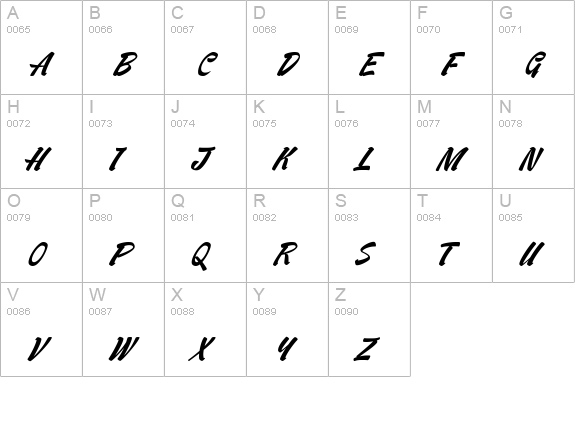
Ventography Personal Use Only font is a versatile and unique typeface that is perfect for adding a touch of elegance to any design project. Its striking and stylish letterforms make it suitable for a wide range of applications, from logos and branding to headings and signage. This font features a delicate balance between classic and modern design elements, creating a harmonious and visually appealing aesthetic. With its clean lines and intricate details, Ventography Personal Use Only font exudes sophistication and professionalism. One of the best things about Ventography Personal Use Only font is that it is completely free to use. Yes, you heard it right! This font is freely available to download at FontsMarket.com, making it accessible to designers and creatives of all levels. Whether you are a professional designer or a hobbyist, this font will be a valuable addition to your typography collection. Not only is Ventography Personal Use Only font free, but it also offers exceptional quality. It has been meticulously crafted with attention to detail, ensuring that each character is precise and visually appealing. The font's legibility and readability are top-notch, making it suitable for both large and small sizes. Whether you are designing a website, creating a business card, or working on a poster, Ventography Personal Use Only font will add a touch of sophistication and uniqueness to your project. Its versatility and timeless appeal make it suitable for a wide range of design styles and purposes. So why wait? Download Ventography Personal Use Only font today and elevate your design projects to new heights. With its stunning visual presence and the fact that it is freely available at FontsMarket.com, this font is a must-have for every designer's toolkit. Embrace the elegance and creativity that Ventography Personal Use Only font brings, and let your designs stand out from the crowd.